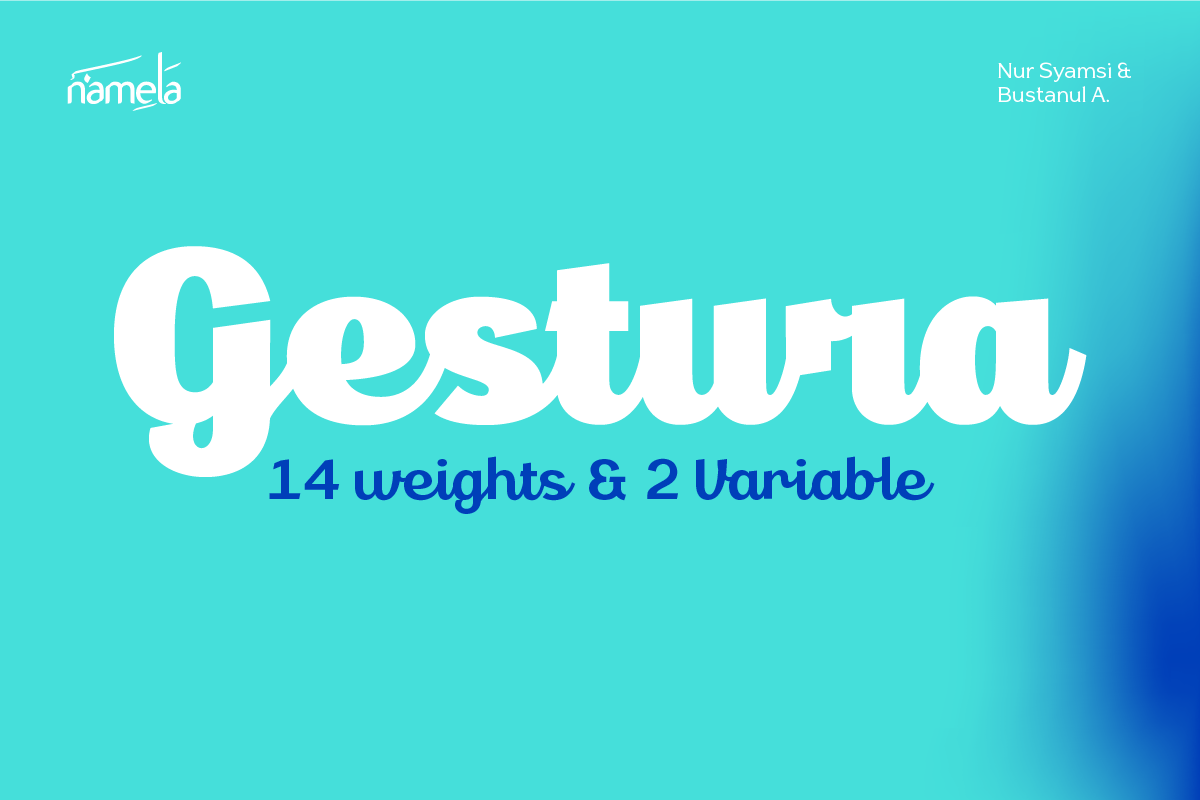
Gestura ExtraBold
Gestura Font - A Clean Connected Script Typeface for Corporate Branding Not all script fonts strike the right balance. Some become overly decorative, while others lose their personality in the pursuit of clarity. Gestura from Namelatype finds the middle ground—a refined script font that combines the fluidity of handwriting with the precision of modern typography. From luxury branding to editorial headlines, Gestura Clean Connected Script Font delivers expressive elegance without visual clutter